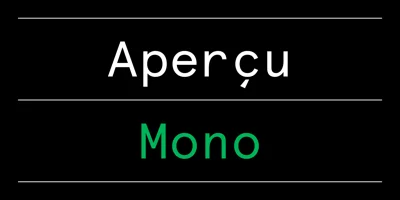
Apercu Mono Font
Apercu Mono Font offers designers a refined monospace typeface that combines coding functionality with contemporary design sophistication and exceptional legibility. However, for commercial use, you must purchase this font. You can download it for free for testing purposes only.
Apercu Mono Font excels in technical design applications including software development interfaces, coding documentation, terminal applications, tech company branding, programming tutorials, digital design systems, developer tool interfaces, technical manuals, data visualization projects, and modern code editor themes. This intelligent typeface brings design elegance to technical communications and programming environments.
What makes Apercu Mono Font truly exciting is its unique fusion of monospace precision with humanist warmth that elevates typical coding fonts beyond mere functionality. The font features carefully crafted letterforms with consistent character spacing and subtle design details that reduce eye strain during extended coding sessions. Its sophisticated character and contemporary aesthetic make it perfect for developers and designers who appreciate beautiful typography in technical contexts and professional programming environments.
The Apercu Mono Font family typically includes Regular, Medium, and Bold weights with potential Italic variations optimized for code syntax highlighting. These comprehensive options provide developers and designers with complete typographic flexibility for both user interfaces and technical documentation while maintaining optimal code readability and professional appearance.
Whether you're developing developer tools, creating technical documentation, or designing code-focused campaigns, Apercu Mono Font delivers the coding precision and design sophistication that modern technical projects require. Its exceptional balance of functionality and beauty makes it invaluable for designers working with software companies, coding platforms, and technical organizations requiring elegant monospace typography that enhances both readability and professional credibility in programming contexts.